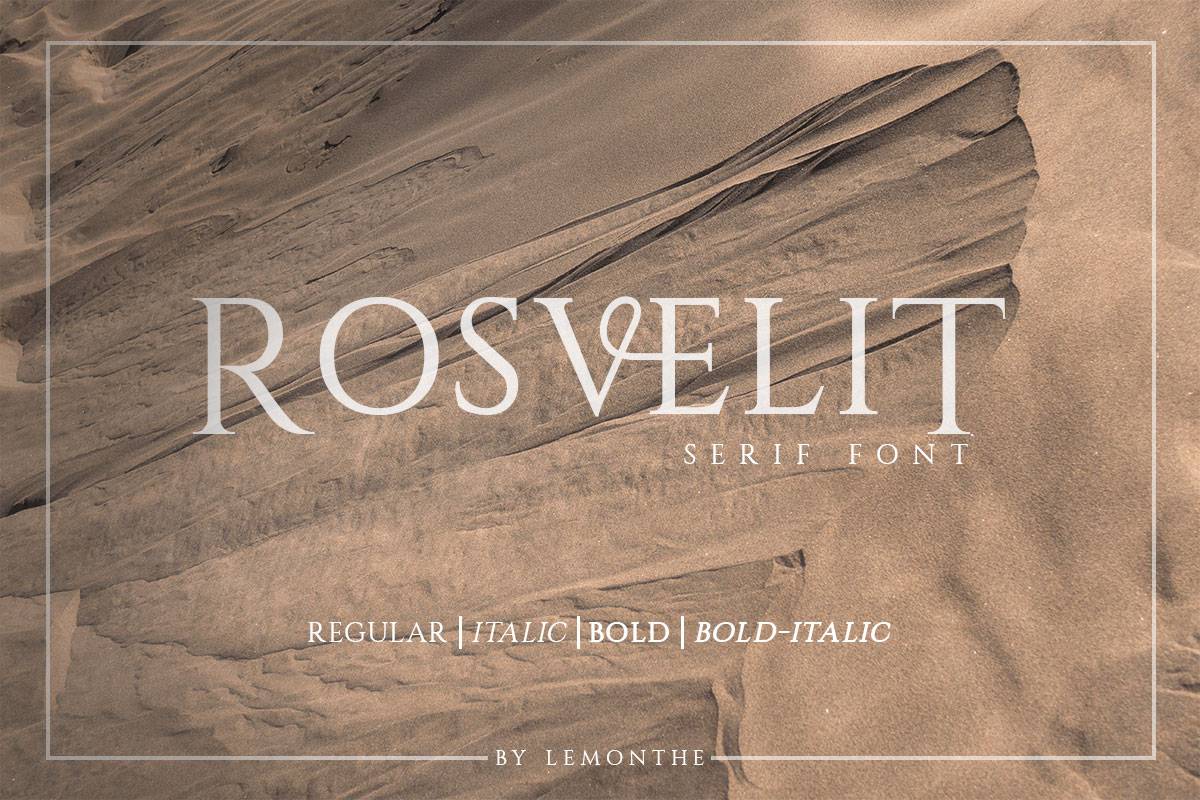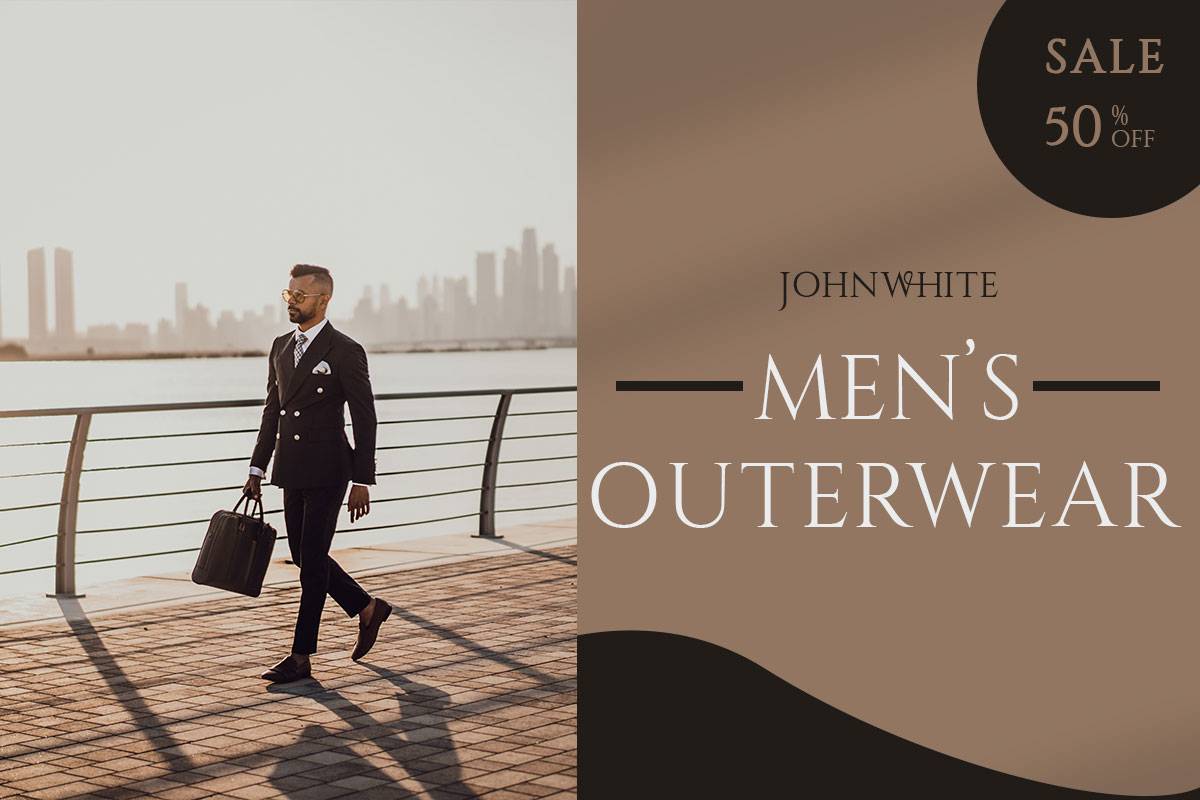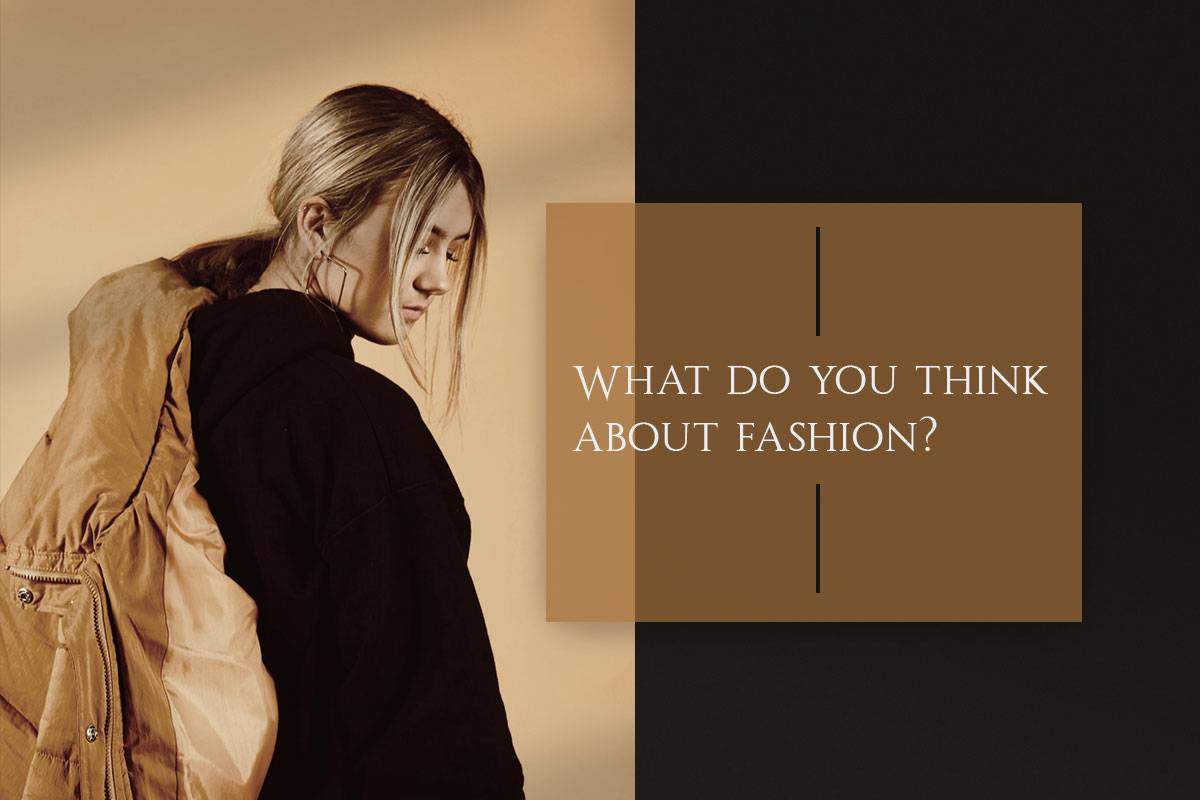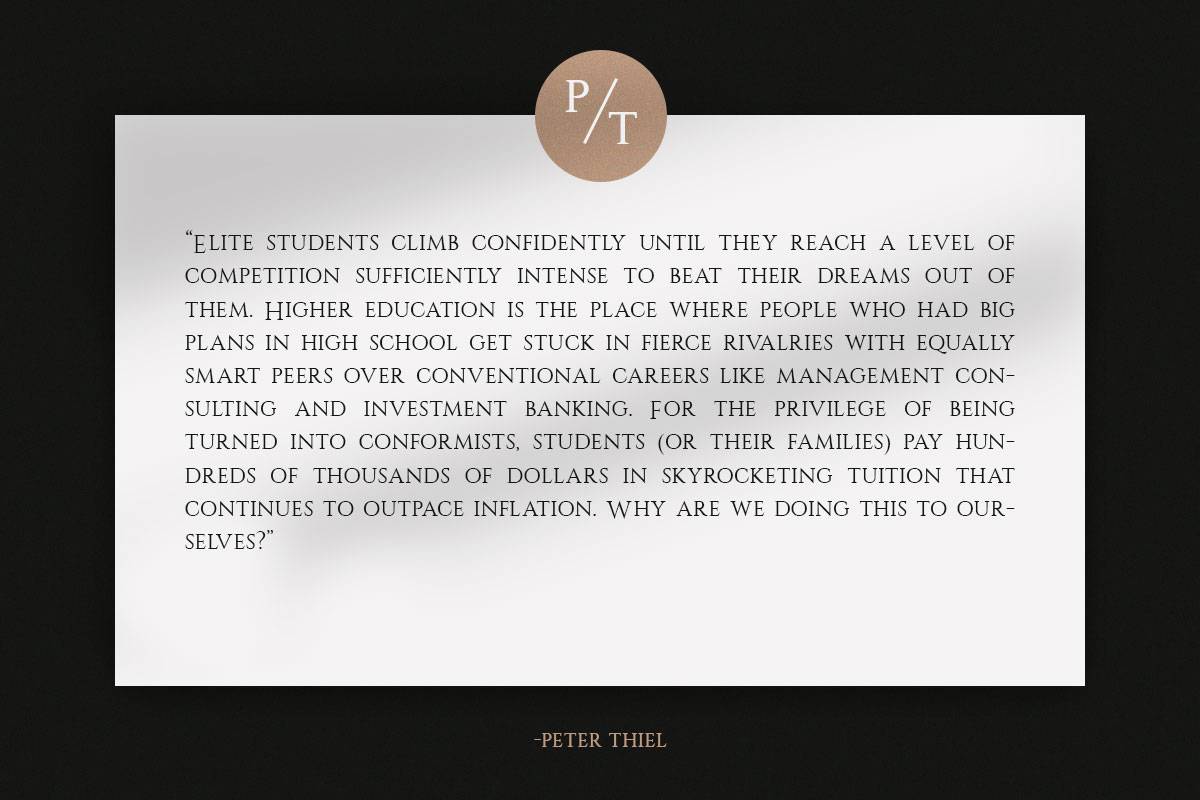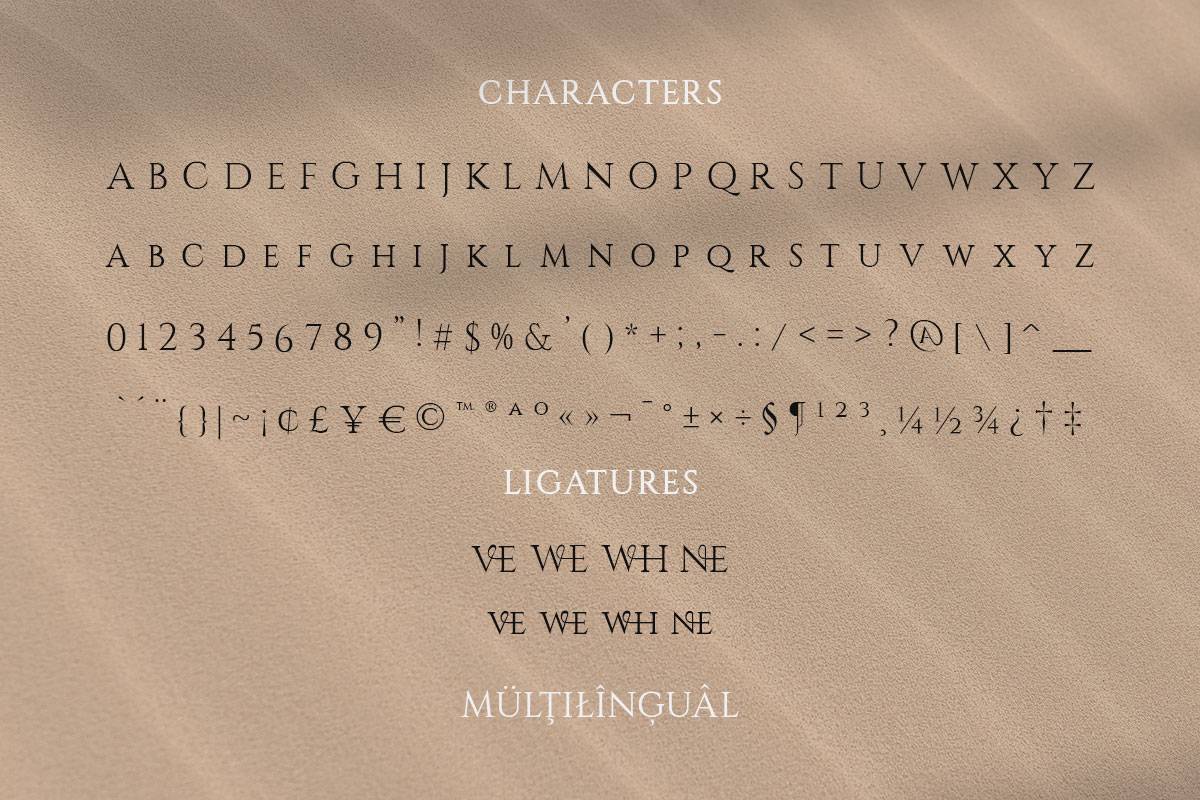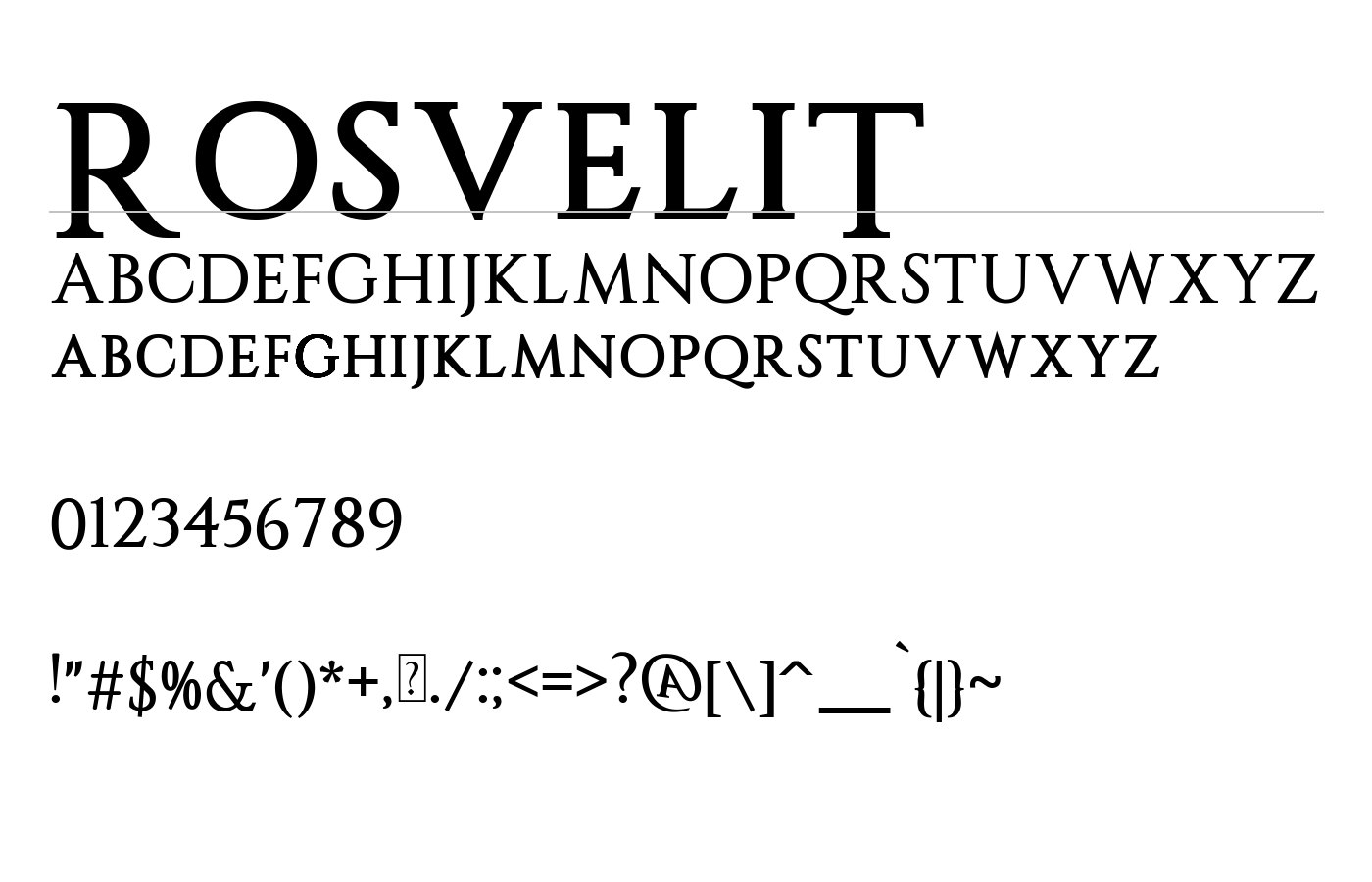
RosveliT is a refined serif font characterized by its elegant thin serifs and moderate stroke contrast, lending it a classic and sophisticated feel. With its clear, upright letterforms and well-balanced proportions, it works beautifully for editorial headlines, luxury branding, and formal invitations where a timeless, professional tone is desired. This font’s graceful style ensures readability while conveying a sense of tradition and authority.
| Font family | RosveliT Font |
| Release date | 2020-06-28 |
| Designer | lemonthe 2020_Dwi Ahidian |